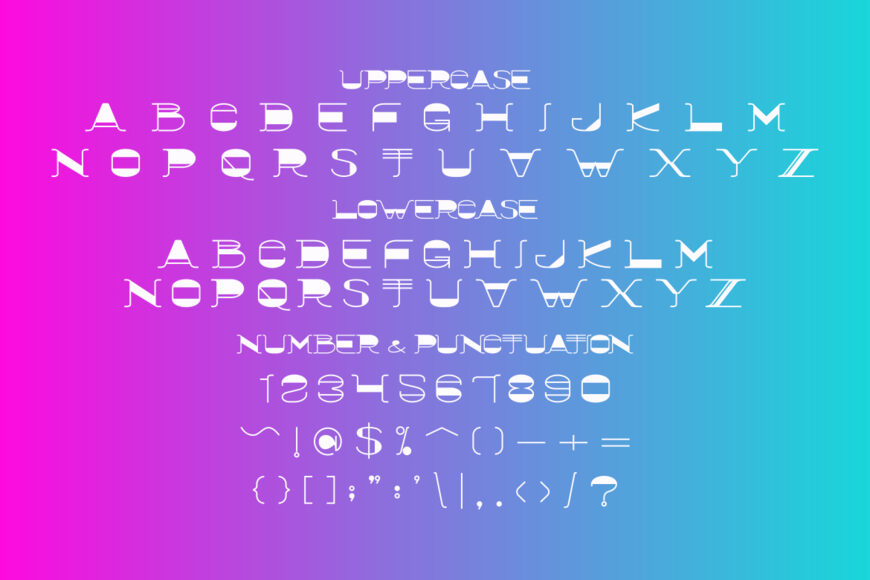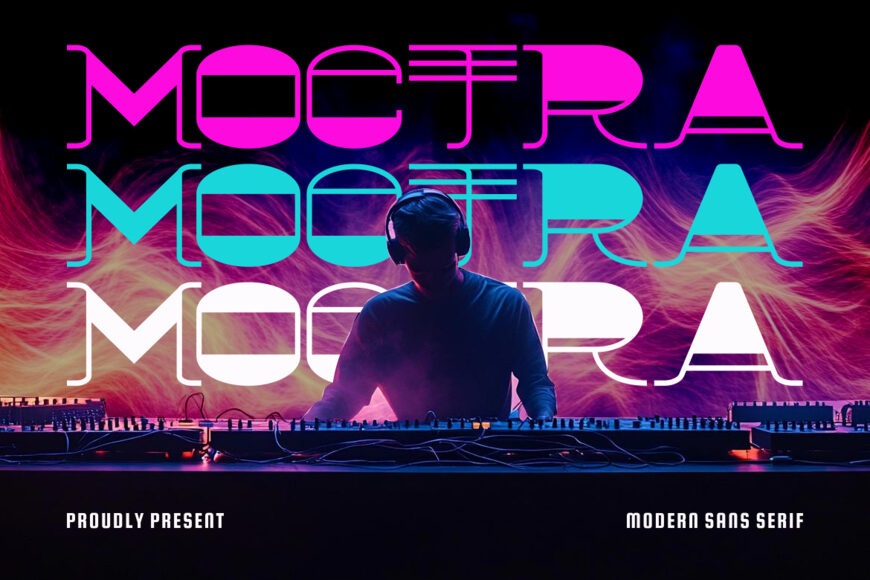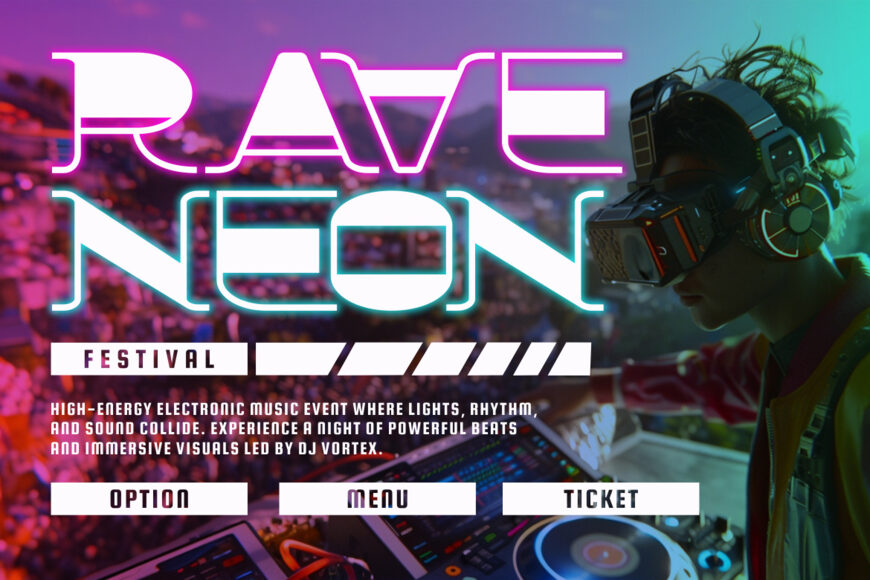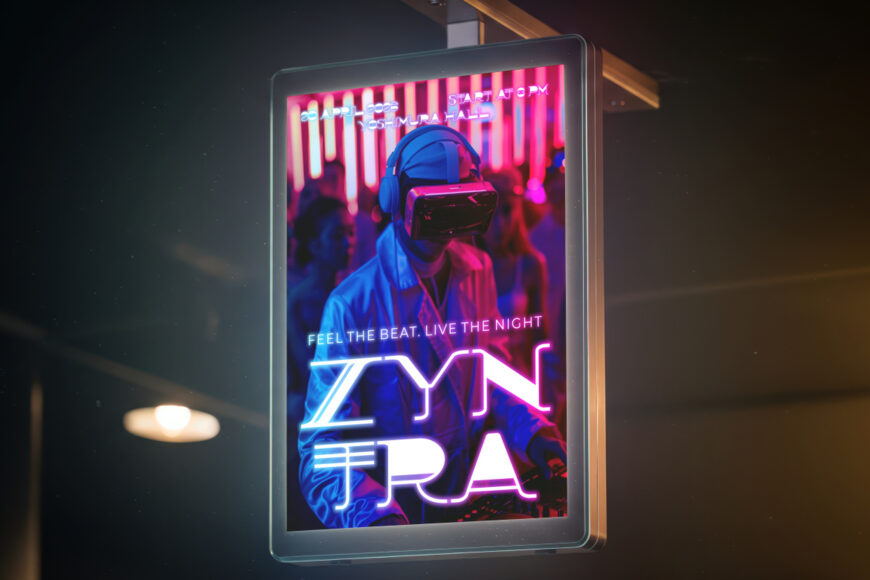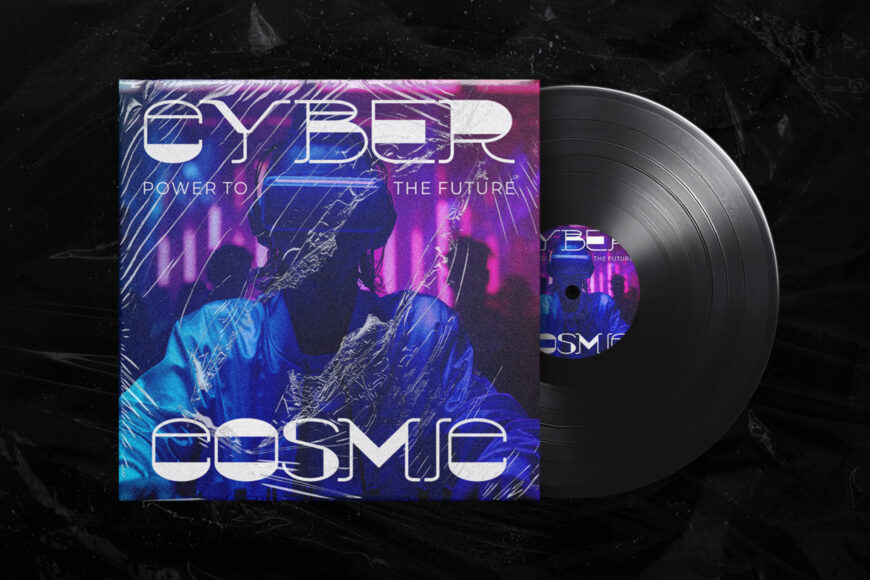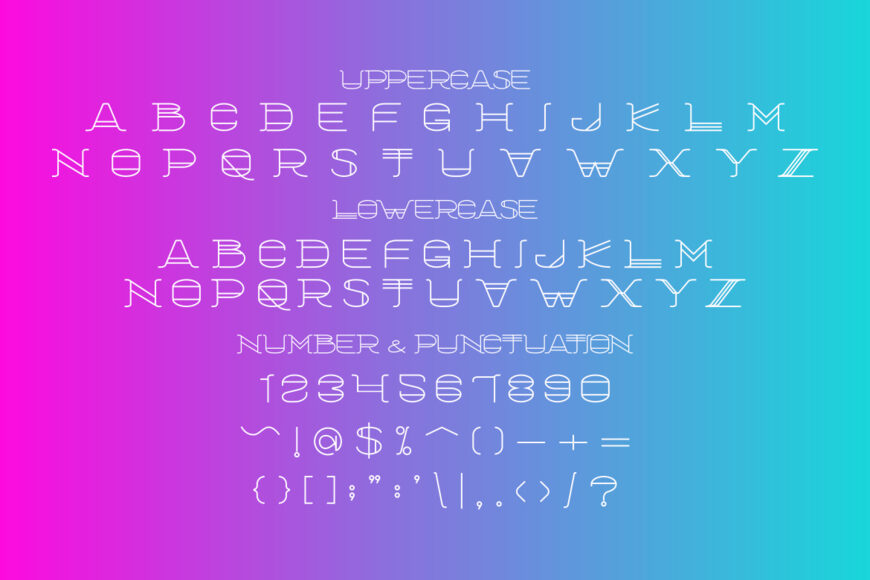
Moctra Font brings a futuristic letter shape with wide geometry and sharp electronic rhythm. The characters mix solid forms, open cuts, and thin inline details. This contrast gives each word a strong visual pulse for music branding. Its uppercase design feels bold, digital, and energetic for logo concepts.
The font carries a techno mood with sleek spacing and experimental construction. Its rounded corners soften the digital structure, while the straight cuts keep the design precise. Moctra Font suits DJ logos, music labels, club flyers, event posters, festival titles, and electronic ads. It also works for headline layouts that need movement, light, and nightlife energy.